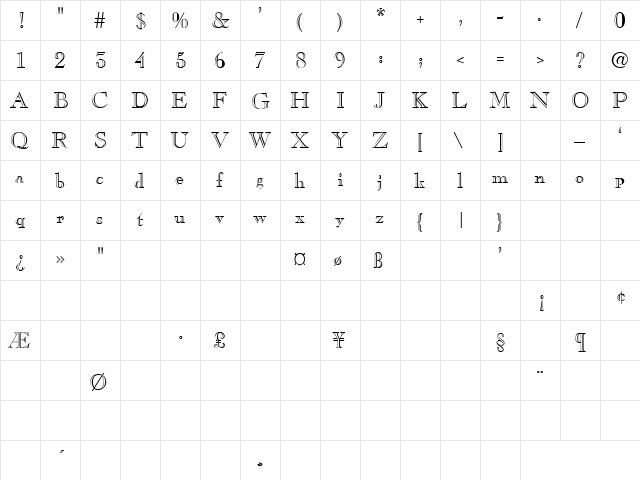
Balinese 3 Regular Font Preview
Balinese 3 Regular
Balinese 3 Regular Font Details
Design Context for Balinese 3 Typeface
Balinese 3 takes a measured approach to typography — its balanced proportions and neutral character make it a reliable workhorse for both digital and print work.